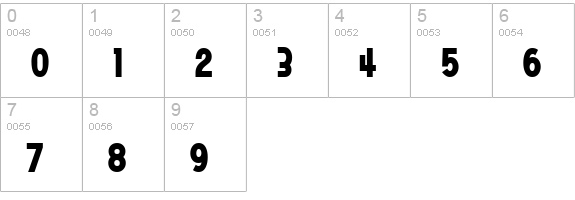
Angostura Black Font Details
Angostura Black is a maximum-weight, dramatic variant in the Angostura typeface family \xE2\x80\x94 well suited to maximum-impact headlines, posters, and packaging.
Angostura Black is a sleek and modern font that exudes sophistication and elegance. With its bold and striking appearance, this font is perfect for creating eye-catching designs that demand attention. Angostura Black is versatile and can be used for a variety of projects, from branding to editorial design. The best part? Angostura Black is available for free download at FontsMarket.com! Now you can elevate your projects with this stunning font without having to worry about breaking the bank. Don't miss out on the opportunity to enhance your designs with the timeless appeal of Angostura Black. Download it today and let your creativity shine!